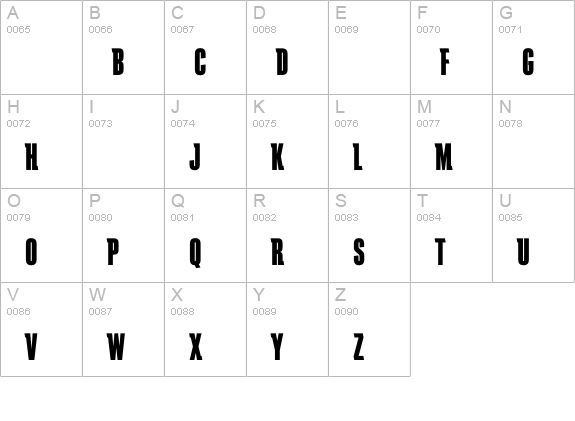
SchindlerExtraBold font is a bold and powerful typeface that exudes strength and confidence. Its thick and prominent strokes make a bold statement, commanding attention and leaving a lasting impression. This font is perfect for headlines, titles, and any design project that requires a strong and impactful visual presence. What sets SchindlerExtraBold font apart is not just its impressive aesthetics, but also its accessibility. Unlike many other fonts, SchindlerExtraBold is freely available to download at FontsMarket.com. This means that anyone can easily obtain this remarkable typeface without any cost or restrictions. Whether you are a professional designer looking to enhance your creative arsenal or a casual user seeking to add a touch of boldness to your personal projects, SchindlerExtraBold font is a perfect choice. Its versatility and accessibility make it a valuable asset for any design endeavor. Download SchindlerExtraBold font today from FontsMarket.com and unlock the power of bold typography without any limitations. Let the captivating strokes of this font amplify your message and make a lasting impact on your audience. With SchindlerExtraBold, boldness is not just a style, but a statement of freedom and accessibility.